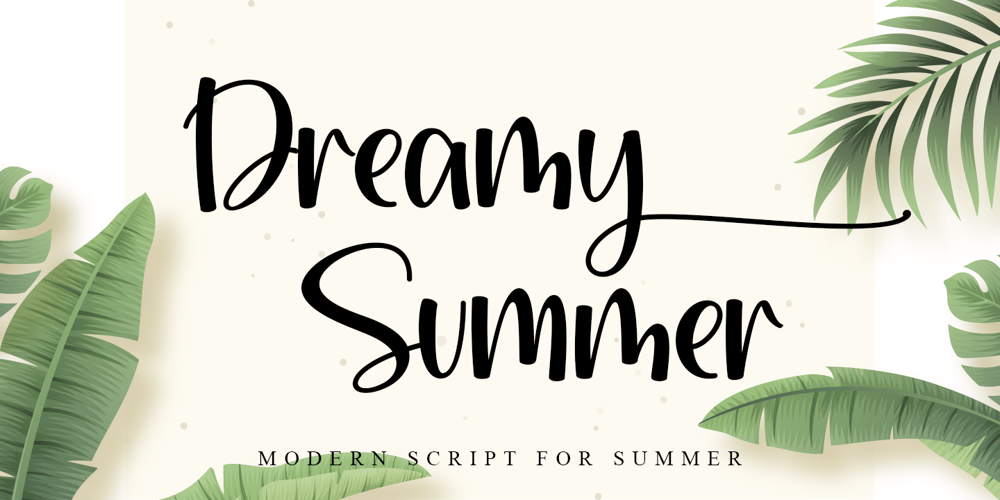
Dreamy Summer Font Family was designed by Thomas Aradea and published by Letterara. Dreamy Summer contains 2 styles and family package options. Dreamy Summer is a stylish and incredibly elegant handwritten font. This font was particularly crafted for those who need a beautiful and refreshing look to their designs. Add it confidently to your projects, and you will love the results. This font is PUA encoded which means you can access all of the glyphs and swashes with ease!